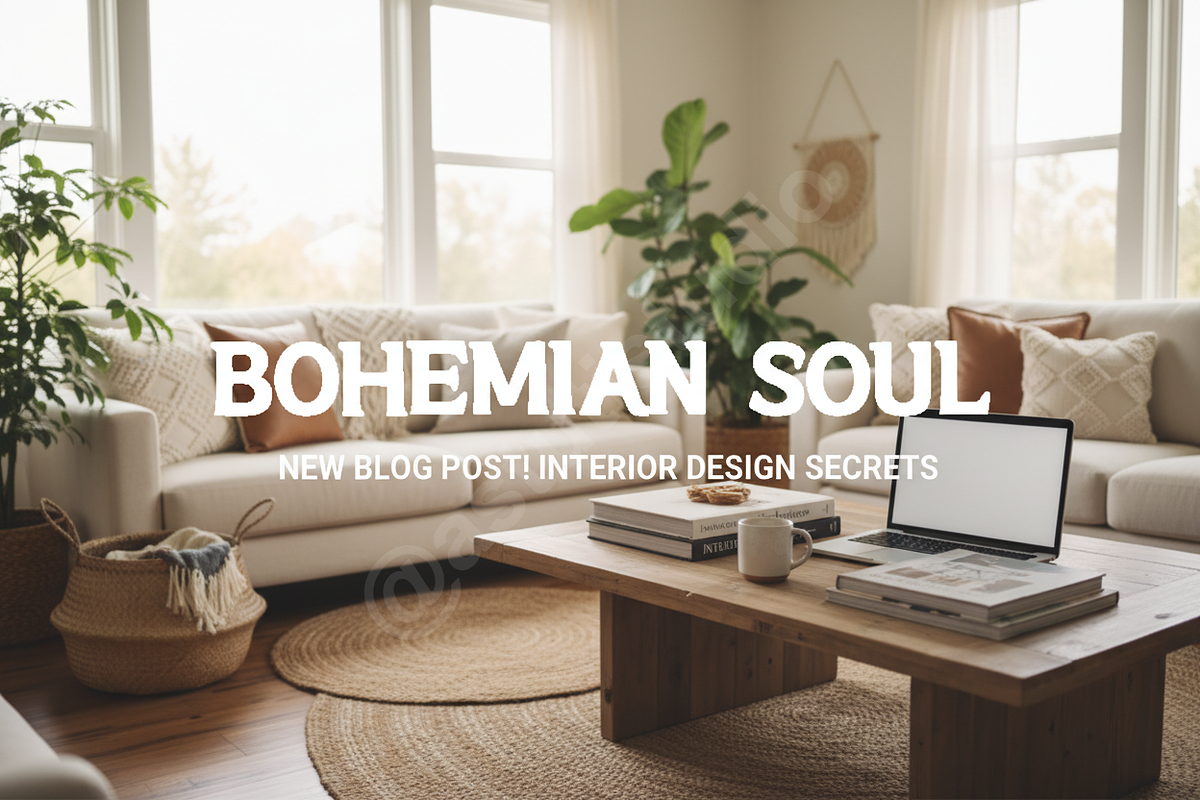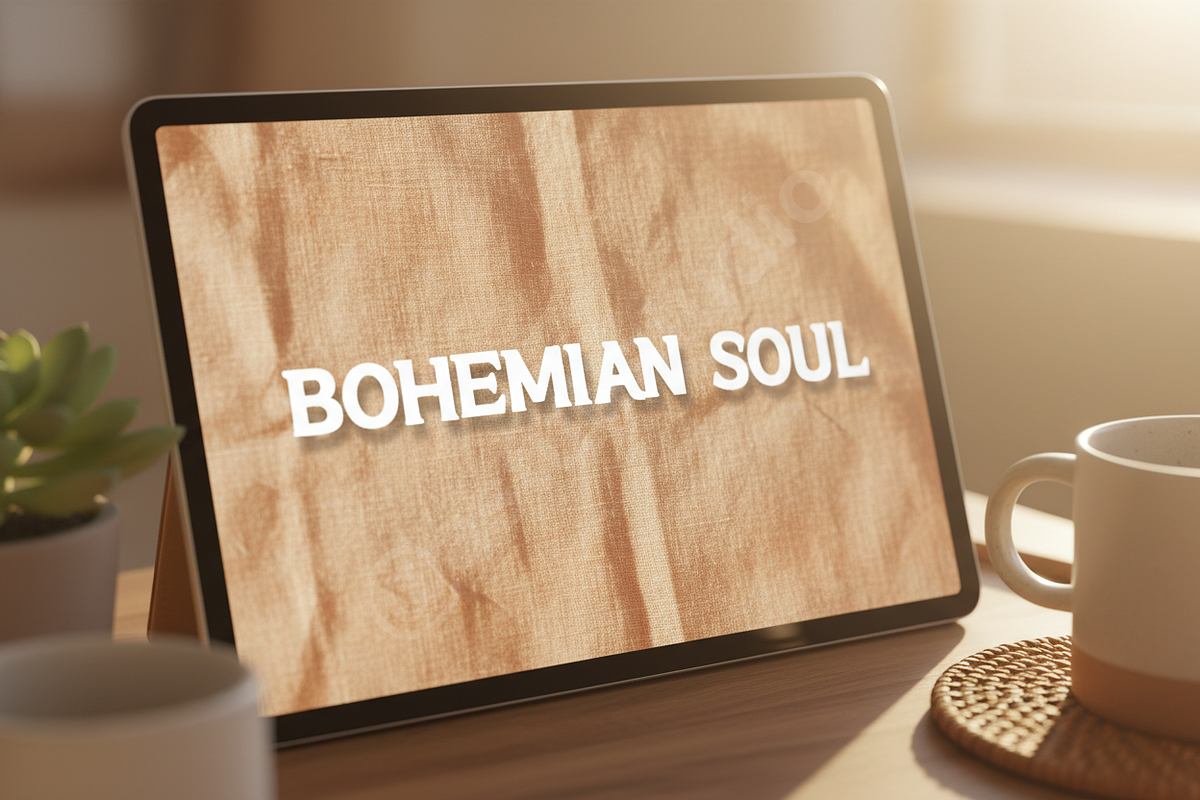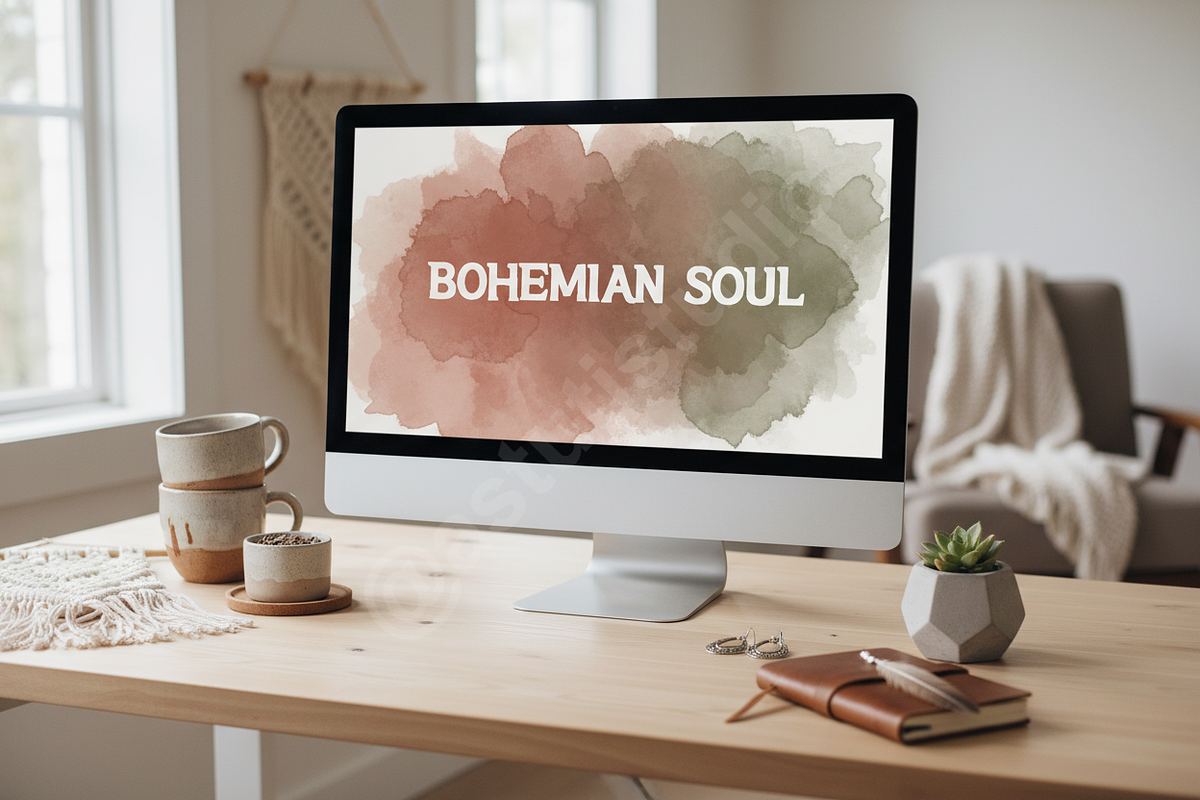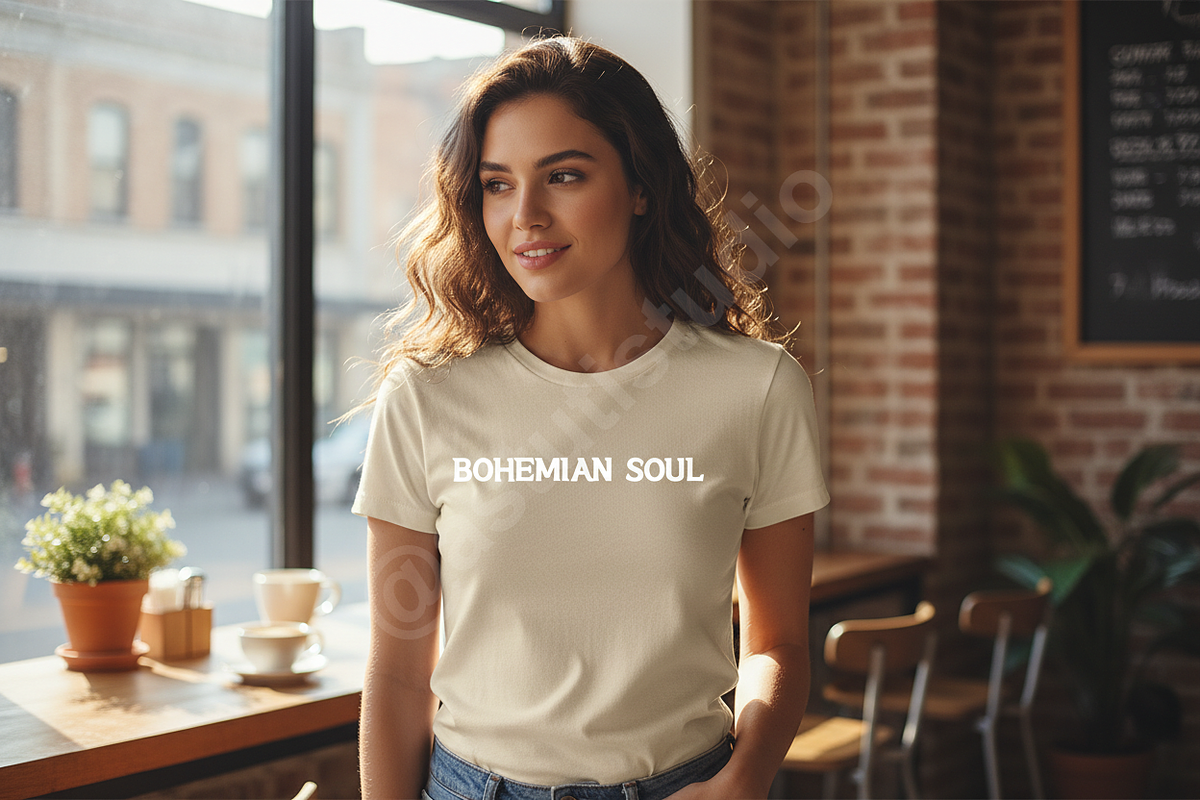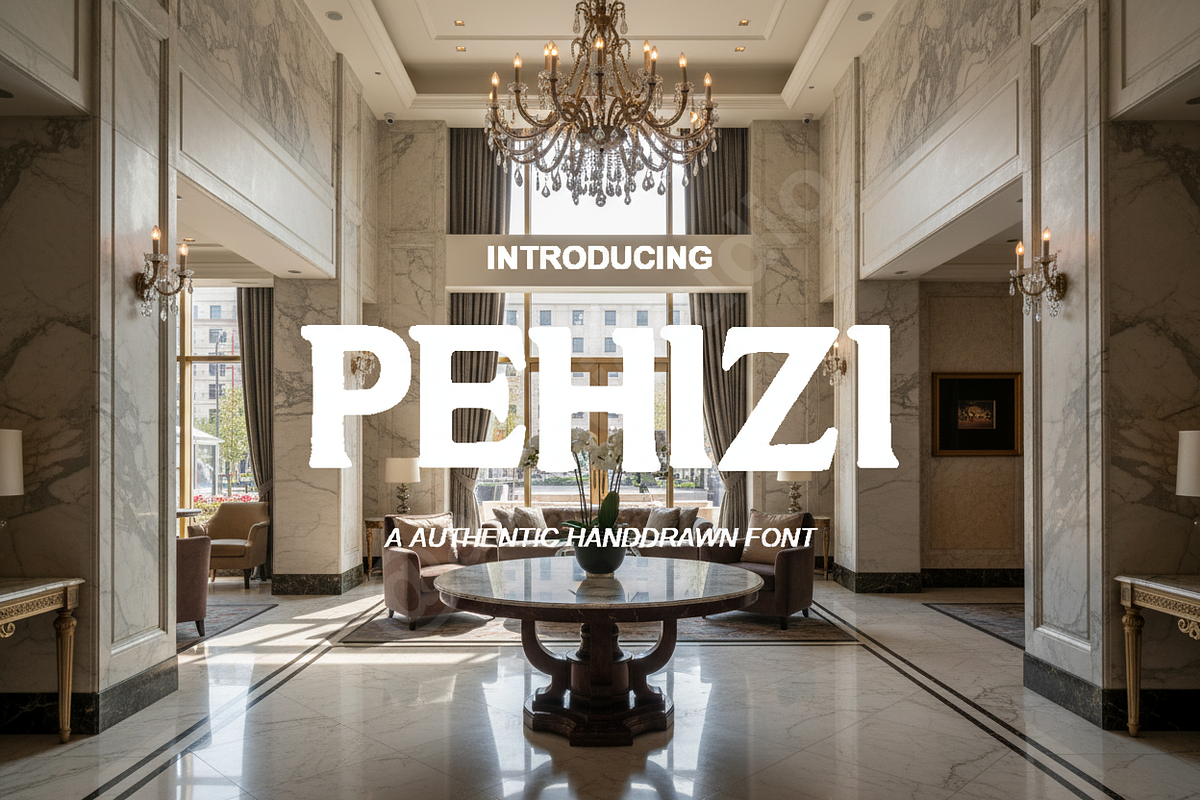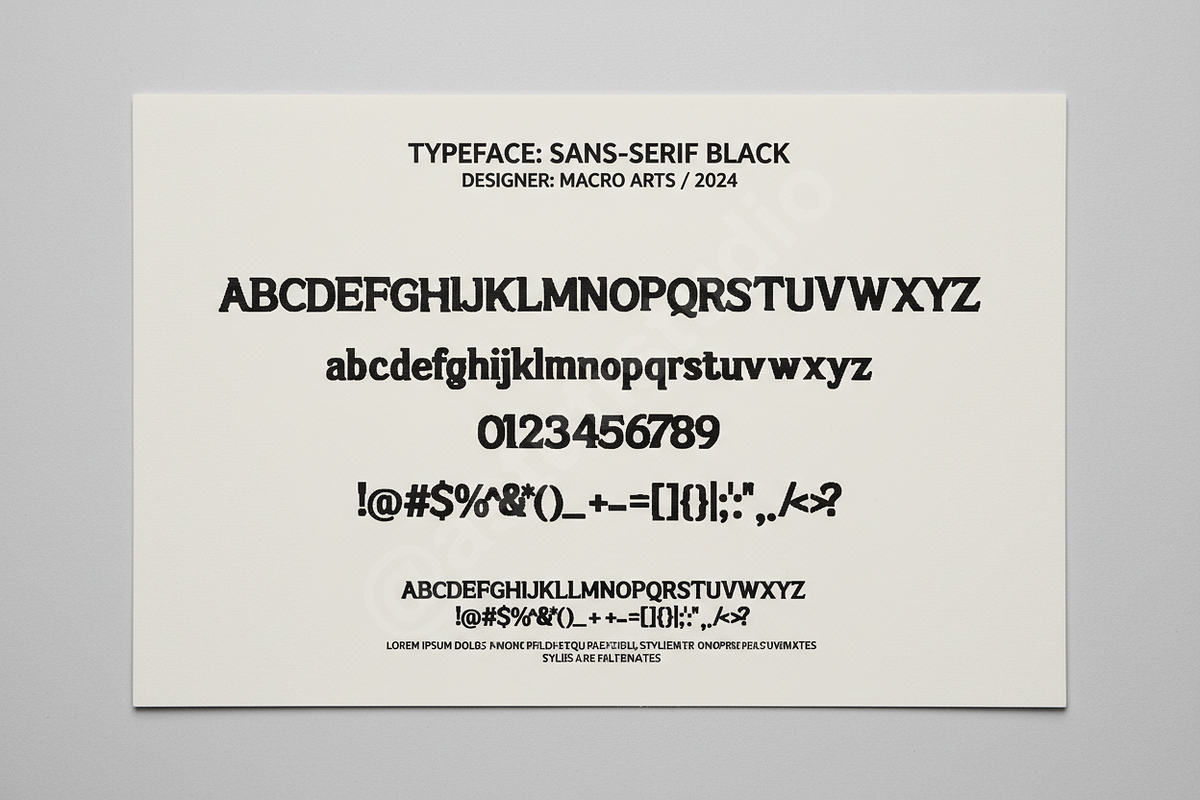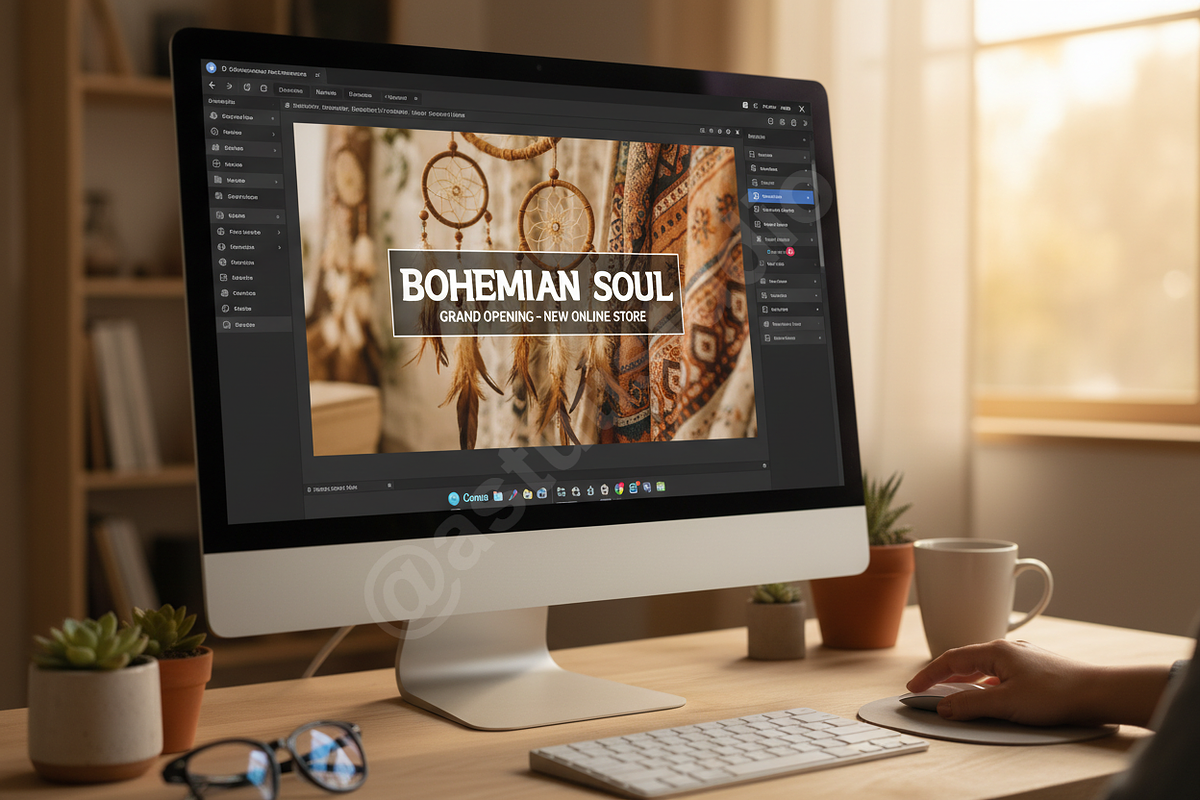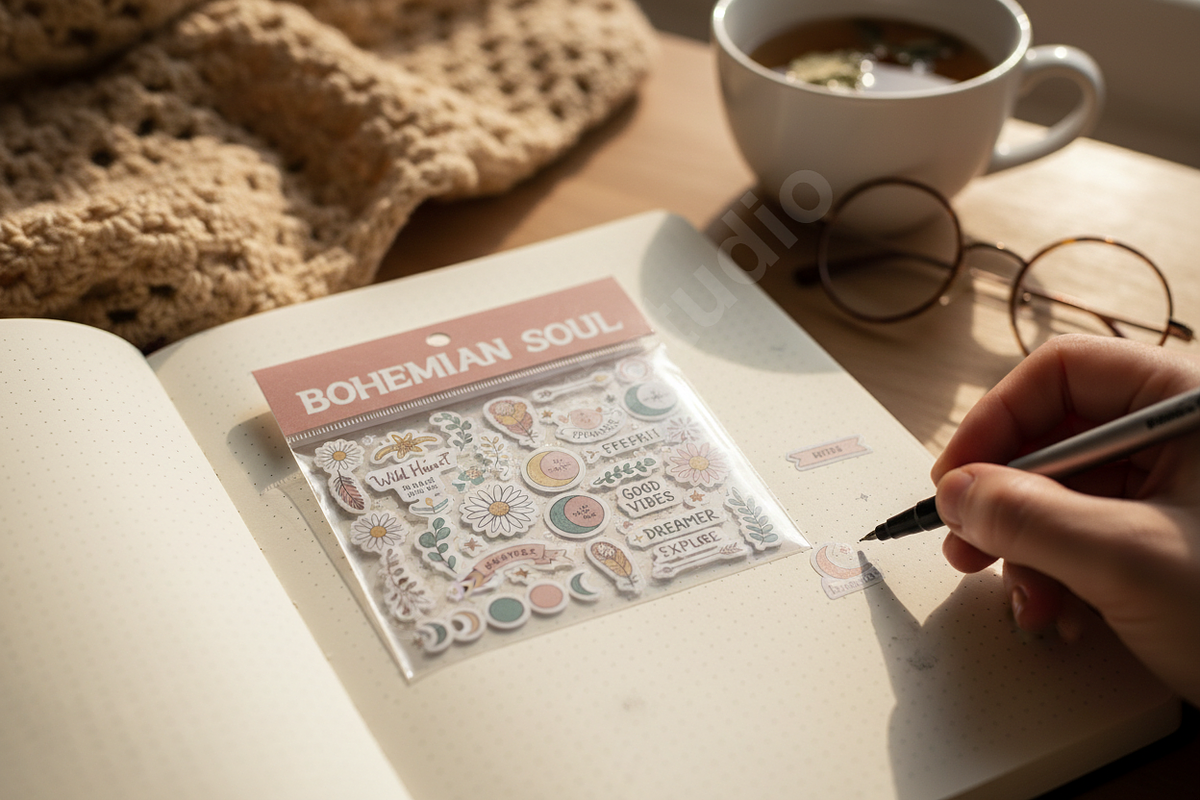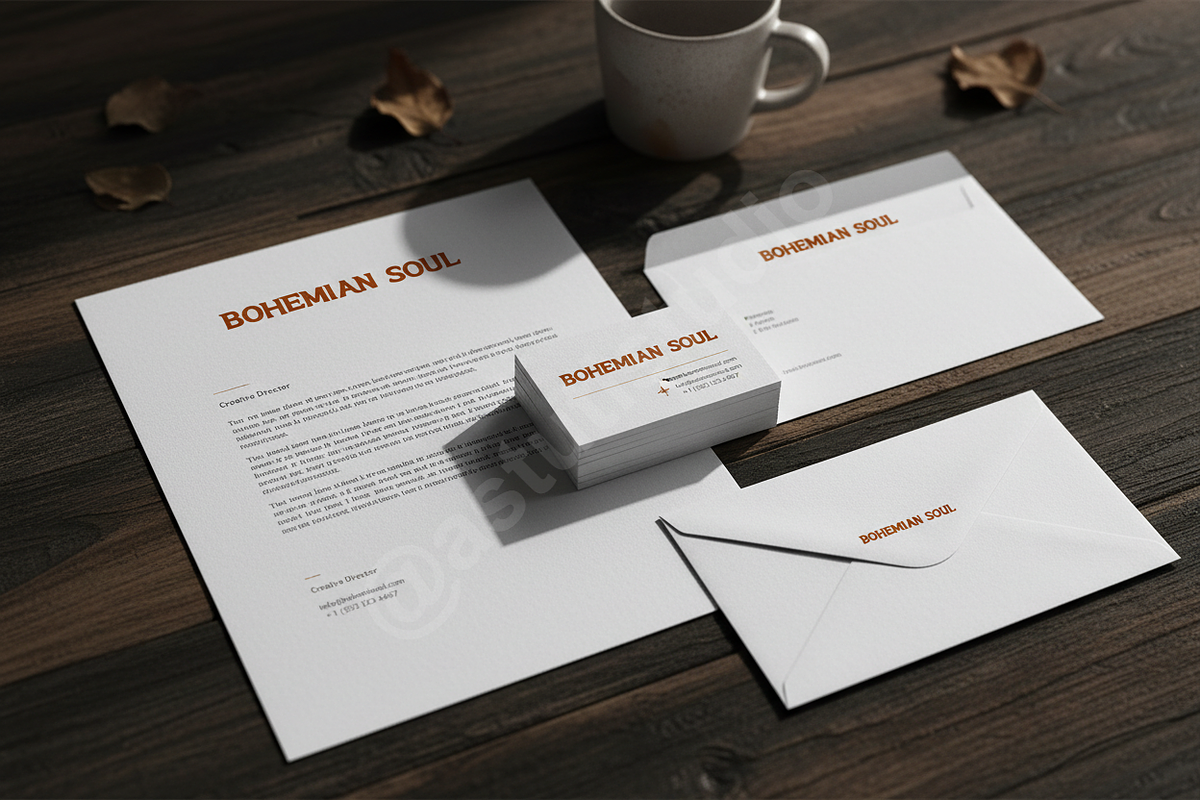
Pehizi - Elegant Luxury Serif Typefa
Pehizi is a premium serif typeface meticulously crafted for brands that demand sophistication and grace. Defined by its high-contrast strokes and refined proportions, Pehizi brings a sense of effortless luxury to every design. This font is a versatile choice for designers seeking to bridge the gap between classic heritage and contemporary minimalism.
Whether you are crafting a high-end visual identity, designing a boutique editorial layout, or curated social media content, Pehizi provides a polished, high-end aesthetic that resonates with quality and professionalism.
- Refined high-contrast serif characters
- Sophisticated ligatures for custom typographic flair
- Full uppercase and lowercase character sets
- Comprehensive numerals and punctuation
- Multi-language support for global reach
- Optimized for both print and digital displays